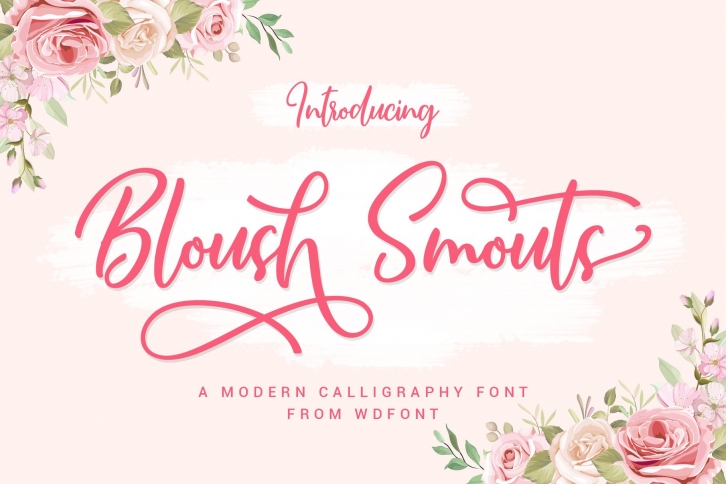
Bloush Smots Script | Modern Calligraphy Font Download
Bloush Smots Script is a trendy and unique font with an authentic style. It was designed by wdfont and it's a great choice for creative people who need such a font. It was released on July 19, 2020 and the file size is 6.53 MB. Bloush Smots Script will add an organic vibe to any design idea!